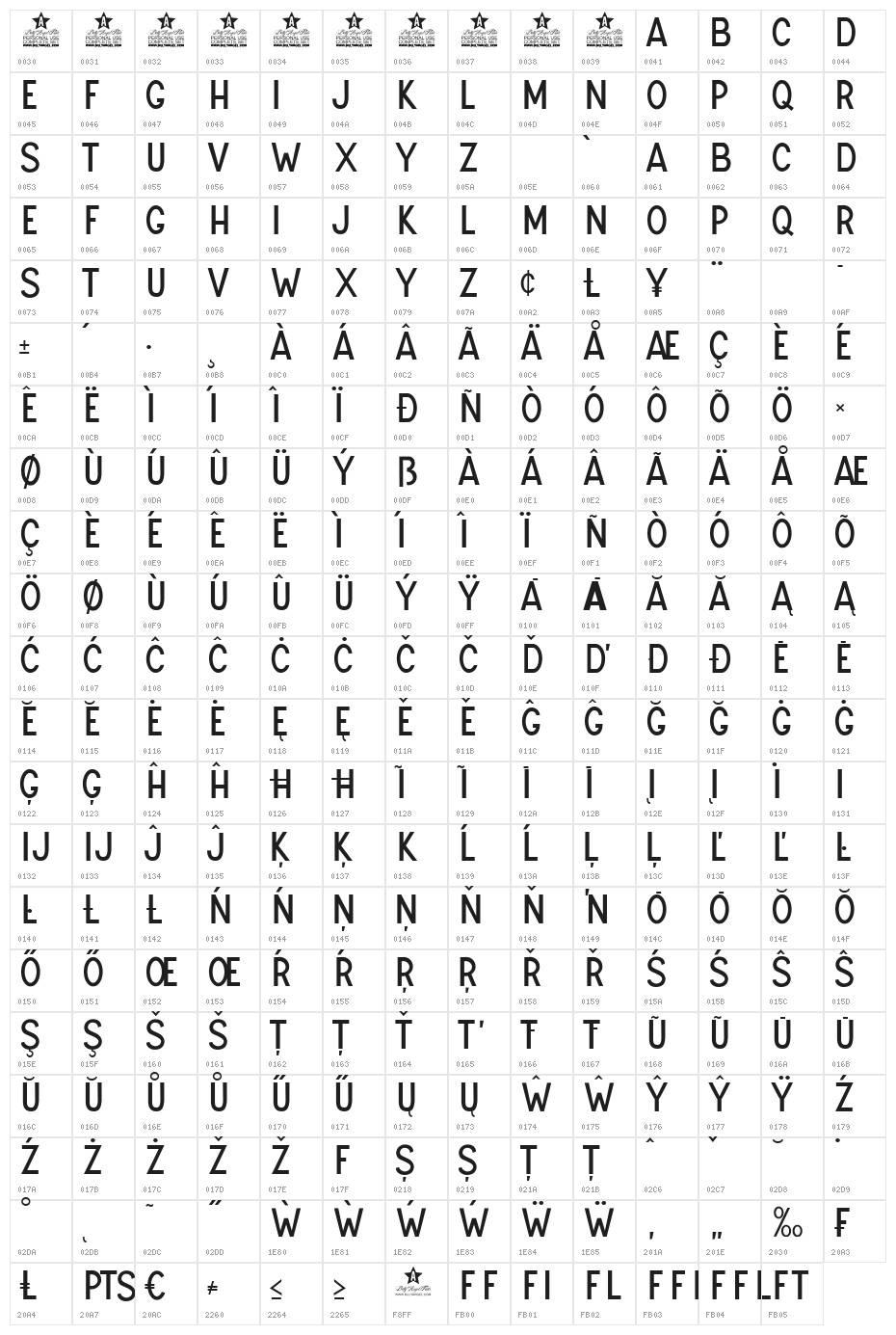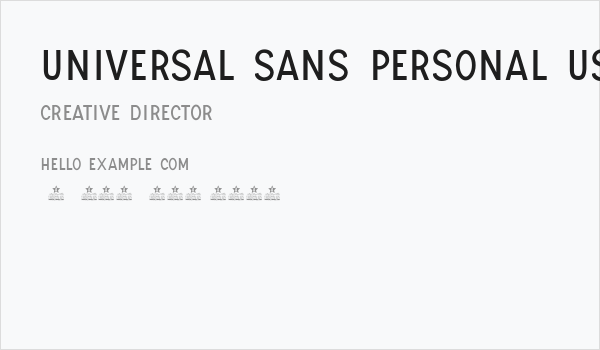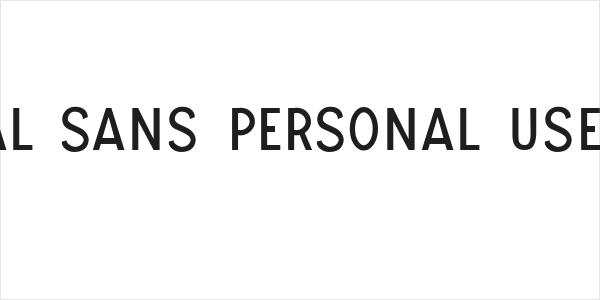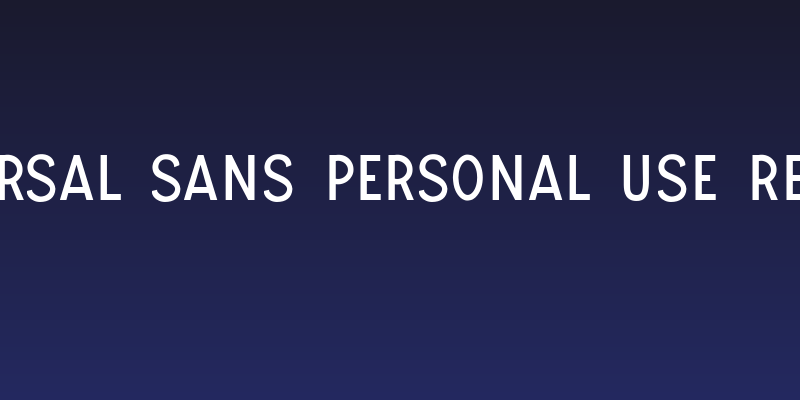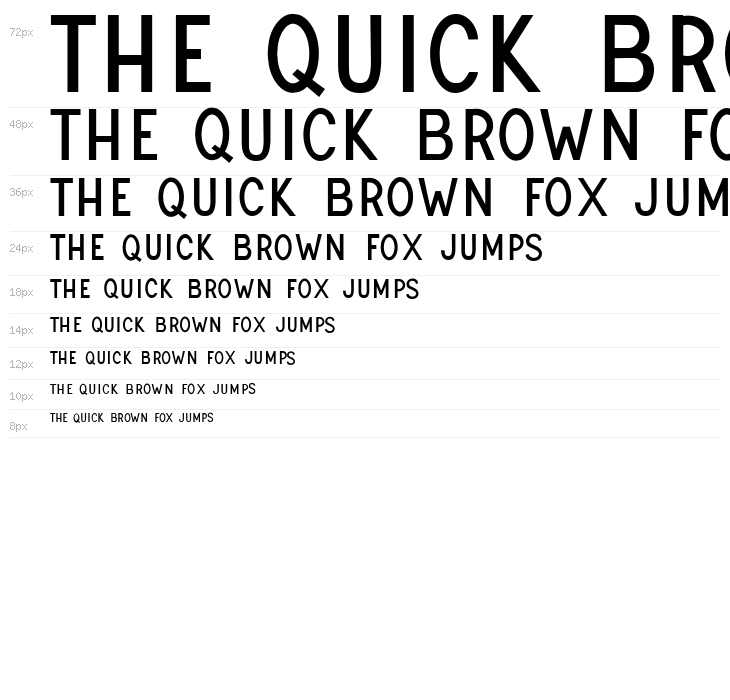
UNIVERSAL SANS PERSONAL USE Regular Font
UNIVERSAL SANS PERSONAL USE Regular Description
This font features a clean and modern sans-serif style, characterized by its straightforward and geometric letterforms. The uppercase and lowercase letters maintain a consistent stroke width, contributing to a uniform appearance. The design is minimalistic, with a focus on readability and simplicity. The characters are well-proportioned, making it suitable for a variety of applications. The font's structure is versatile, allowing it to be used in both digital and print media effectively.